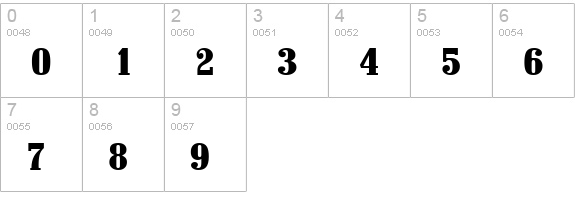
MarlboroWide Regular Font Details
MarlboroWide Regular is the standard, neutral variant in the MarlboroWide typeface family \xE2\x80\x94 well suited to general body text, paragraphs, and standard typographic work.
MarlboroWide Regular font is a bold and striking typeface that exudes confidence and strength. Its wide, bold letterforms make a powerful statement, perfect for headlines, logos, and any design project that requires a strong and impactful look. This versatile font is ideal for both print and digital media, ensuring that your message stands out and grabs the attention of your audience. With its clean and sharp lines, MarlboroWide Regular font is highly legible even at small sizes, making it a reliable choice for body text as well. What sets MarlboroWide Regular font apart is its incredible versatility and adaptability. Whether you're creating a vintage-inspired advertisement or a modern website, this font can effortlessly adapt to any design style, adding a touch of sophistication and elegance to your project. The best part is that MarlboroWide Regular font is available for free download at FontsMarket.com. This means that you can enjoy the benefits of this high-quality font without any cost, making it an excellent choice for budget-conscious designers and creative professionals. So why wait? Download MarlboroWide Regular font today and add a touch of boldness and style to your designs. With its strong presence and timeless appeal, this font will make a lasting impression on your audience and elevate your design to new heights.